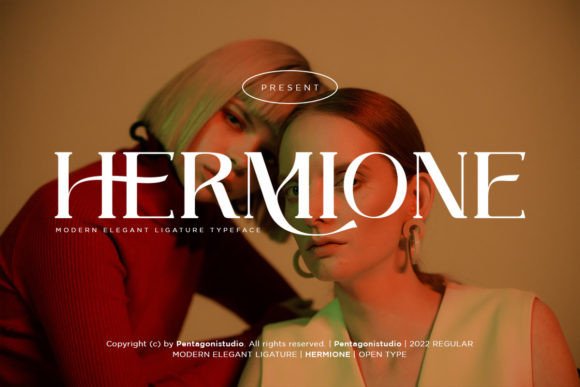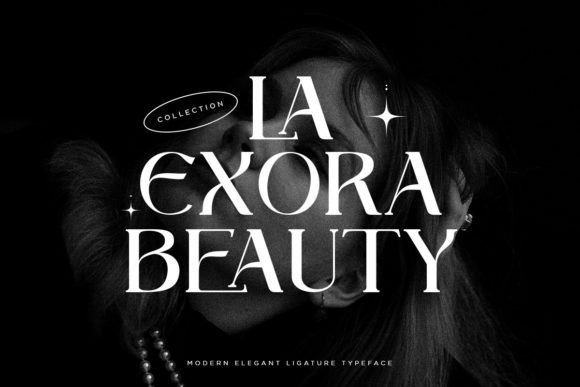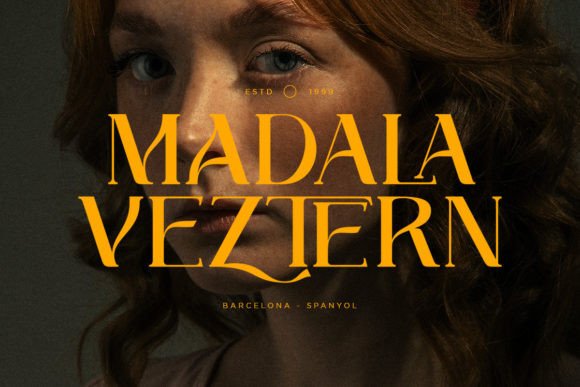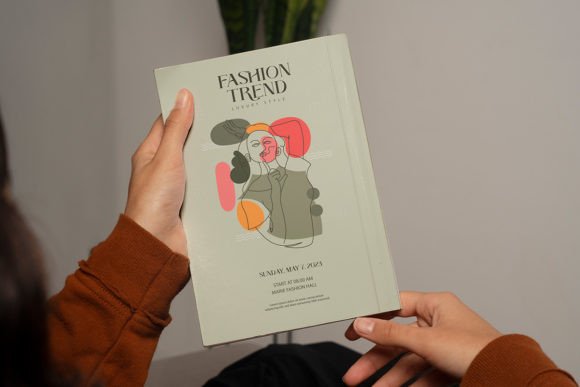
Hermione Modern Serif Font
About the Hermione Modern Serif Font
Explore the possibilities with Hermione Modern Serif Font, a font that offers both beauty and functionality. Hermione is a modern serif font with stylistic alternates and ligatures.
Hermione’s elegant yet modern serif design makes it ideal for headlines, branding projects requiring a touch of sophistication, and short-form text on packaging or posters. Its refined details work well in high-end contexts. However, the stylistic alternates, while adding character, may hinder readability in body text or long paragraphs, making it unsuitable for UI or lengthy articles.
The font’s core personality is sophisticated and modern, with a hint of boldness. It projects a sense of confidence and timeless style.
Pairing Hermione with a clean sans-serif like Open Sans for body text provides excellent contrast and readability. For a more playful approach, consider pairing it with a script font such as Great Vibes for accents, while a geometric sans-serif like Futura would create a striking, contemporary feel.
Hermione Modern Serif Font Usage Examples
Hermione Modern Serif Font Example